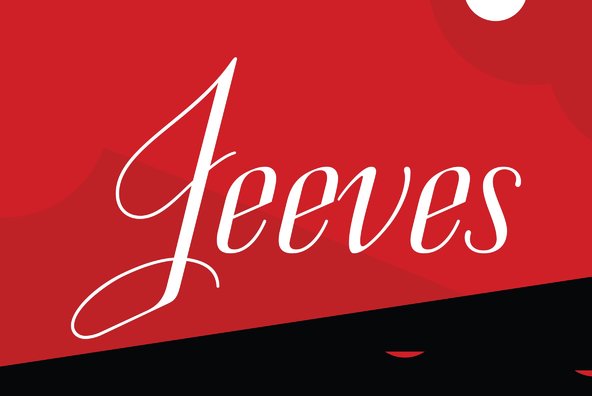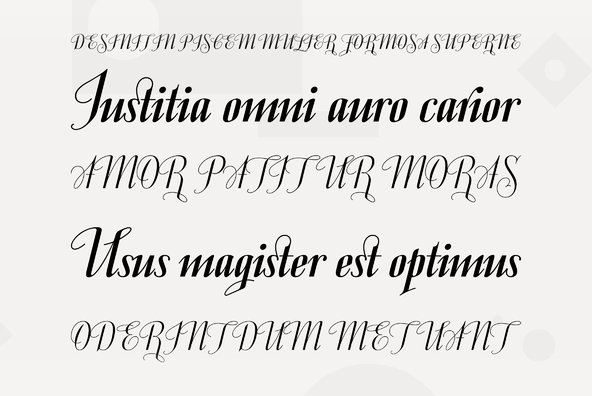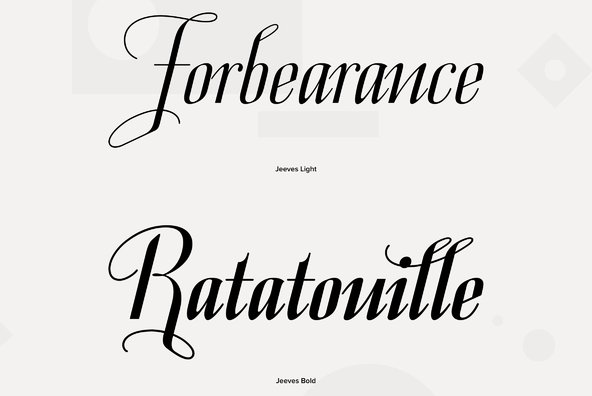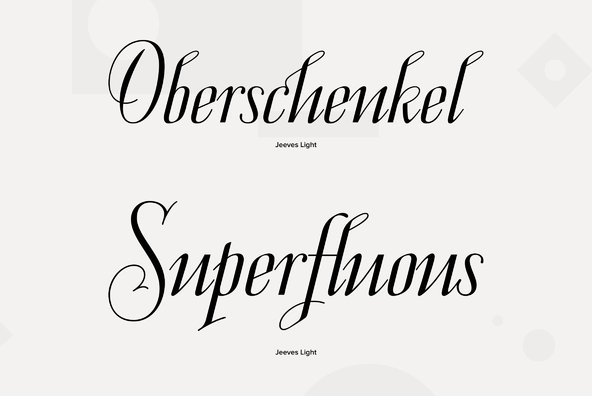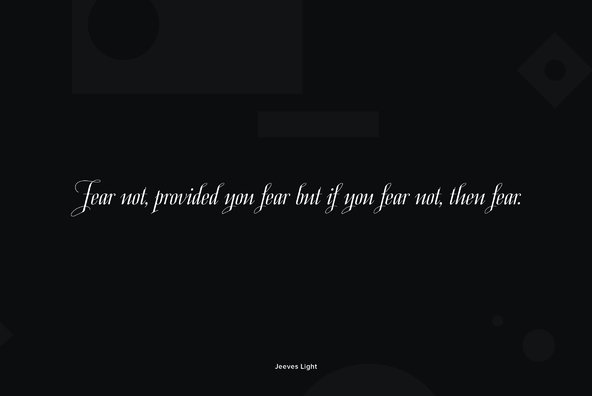
The inspiration for Jeeves came from Leslie Carbarga's wonderful book "LETTERHEADS, One Hundred Years of Great Design, 1850-1950." It was based on a secondary type usage for the letterhead for Sutherland in New York.
The inspiration for Jeeves came from Leslie Carbarga's wonderful book "LETTERHEADS, One Hundred Years of Great Design, 1850-1950." It was based on a secondary type usage for the letterhead for Sutherland in New York. The rest of the letterhead had features that were more typical of the Art Deco period, but this script added a touch of timeless elegance. And since at the time I was reading every scrap of P.G. Wodehouse I could get my hands on, the name Jeeves seemed like a perfect fit. The font is loaded with a plethora of extra glyphs, ligature characters and OpenType features.